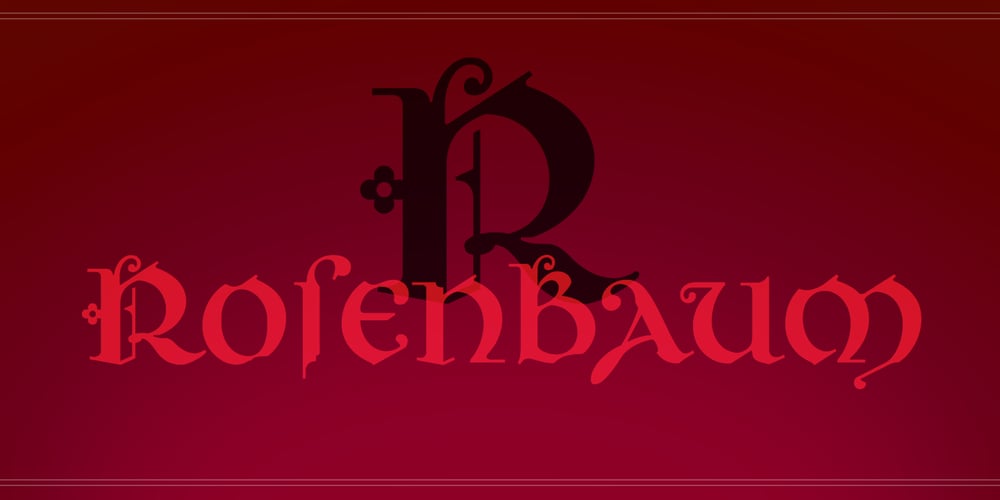
Rosenbaum Font Family was designed by Andreas Stötzner and published by SIAS. Rosenbaum contains 2 styles and family package options. The design of Rosenbaum started with the idea of an eclectic merger of didone stroke pattern and contrast, uncial letterforms and blackletter appearance. It was a destillation experiment. It happened around christmas in 2011. The result is a unique typeface which strongly evokes a peculiar pastiche mood without being any historical in the strict sense of the word. It’s all about the fun to mix ingredients and to freely create reminiscences in a new way. Rosenbaum is a typeface like a fairytale – one of a kind, strangely poetic and incredibly true at once… Use Rosenbaum for emotional typographics, for fairytale books and stories, for headings and invitations, for distinctive labels or menu cards, for Wave Gothic publishing … you will know best! Both Rosenbaum Eins and Rosenbaum Rose contain all characters needed for any European language. They both contain the same range of additional symbols and ornaments, some of them are zero-width calligraphic embellishments designed for direct combination with the letters, even inside of words.